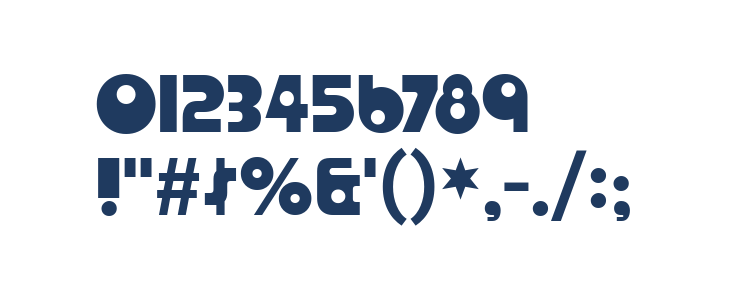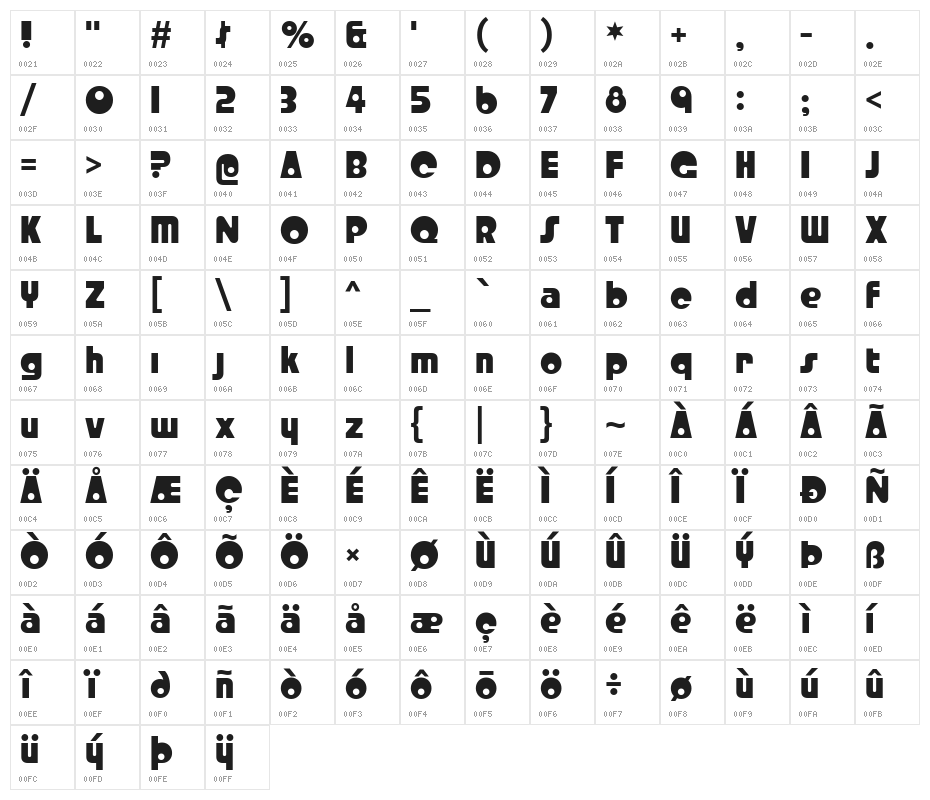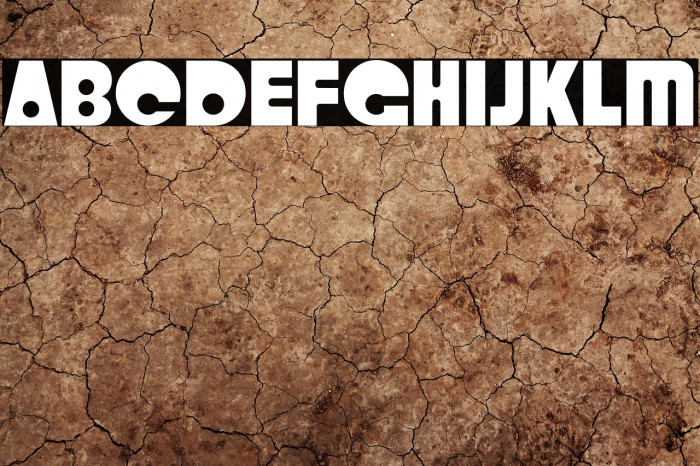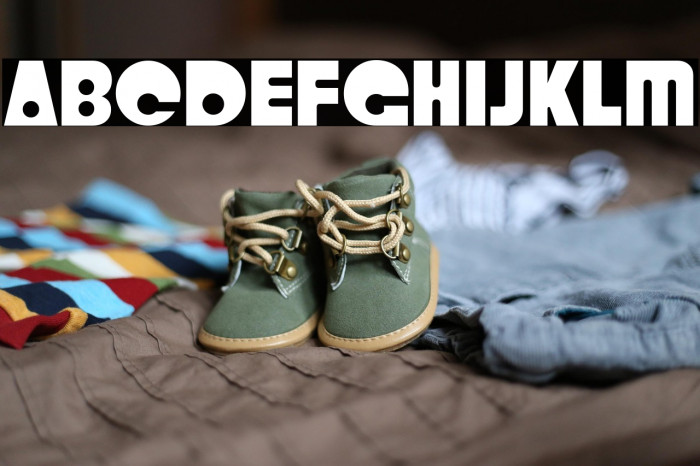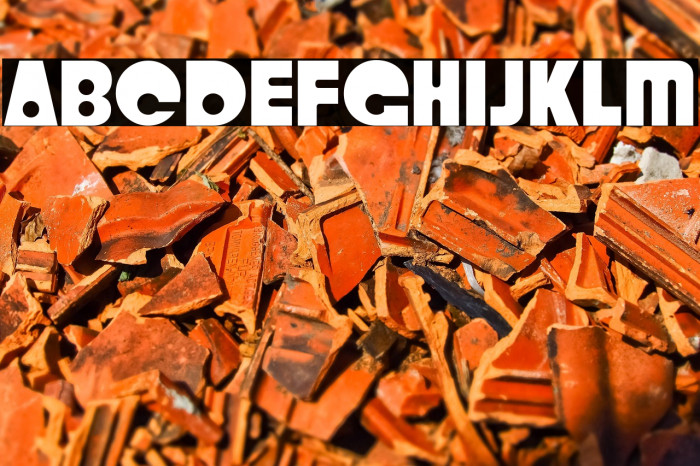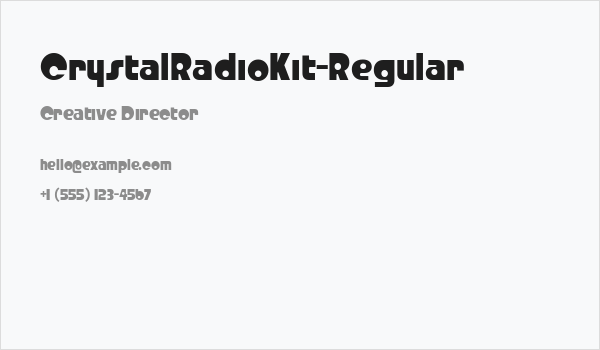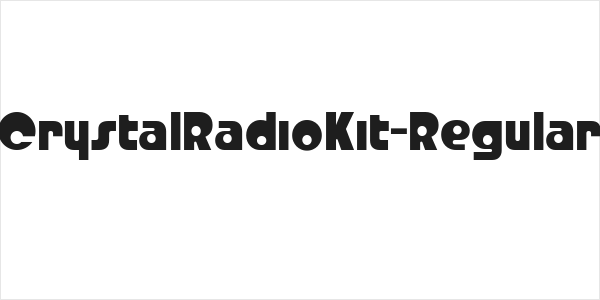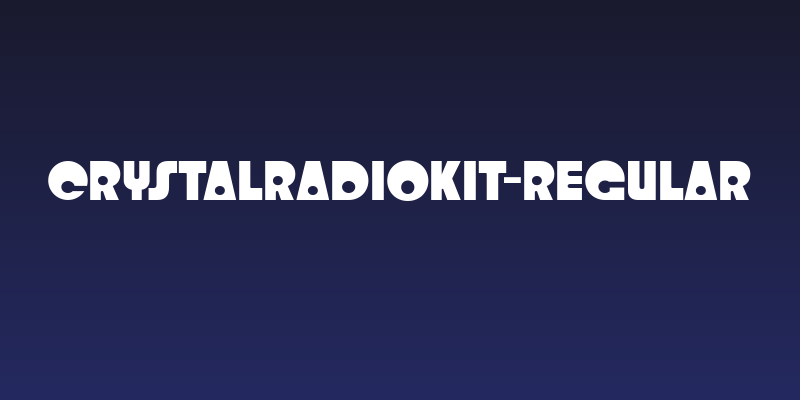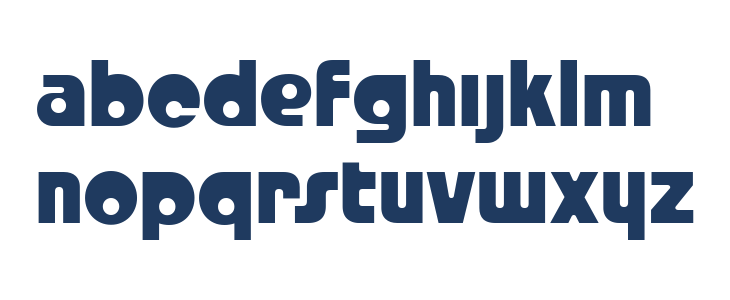
CrystalRadioKit-Regular Font
CrystalRadioKit-Regular Description
This font features a bold and geometric design with a strong emphasis on circular and angular shapes. The uppercase letters are particularly striking, with a blocky and robust appearance that commands attention. The lowercase letters maintain the same geometric style, offering a cohesive look across the typeface. Numbers and special characters are equally bold, with a consistent weight and style that complements the alphabetic characters. The overall design is modern and eye-catching, making it suitable for projects that require a strong visual impact.